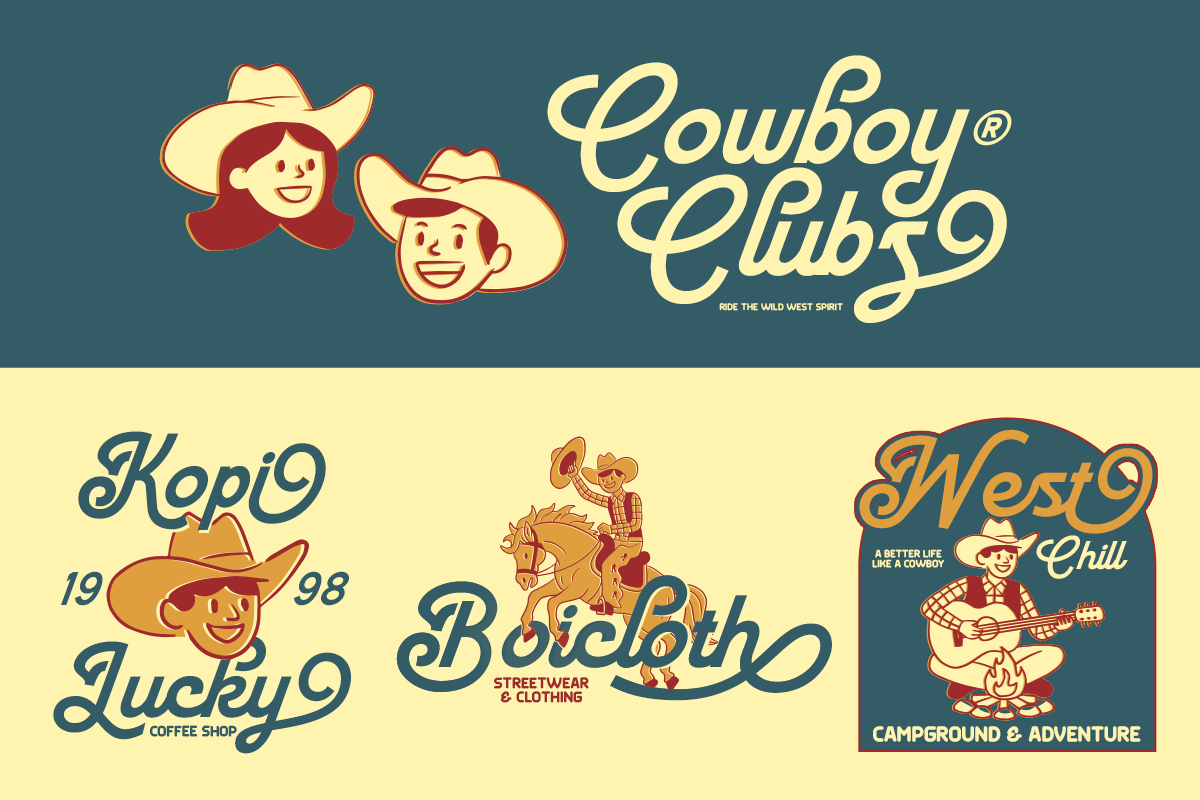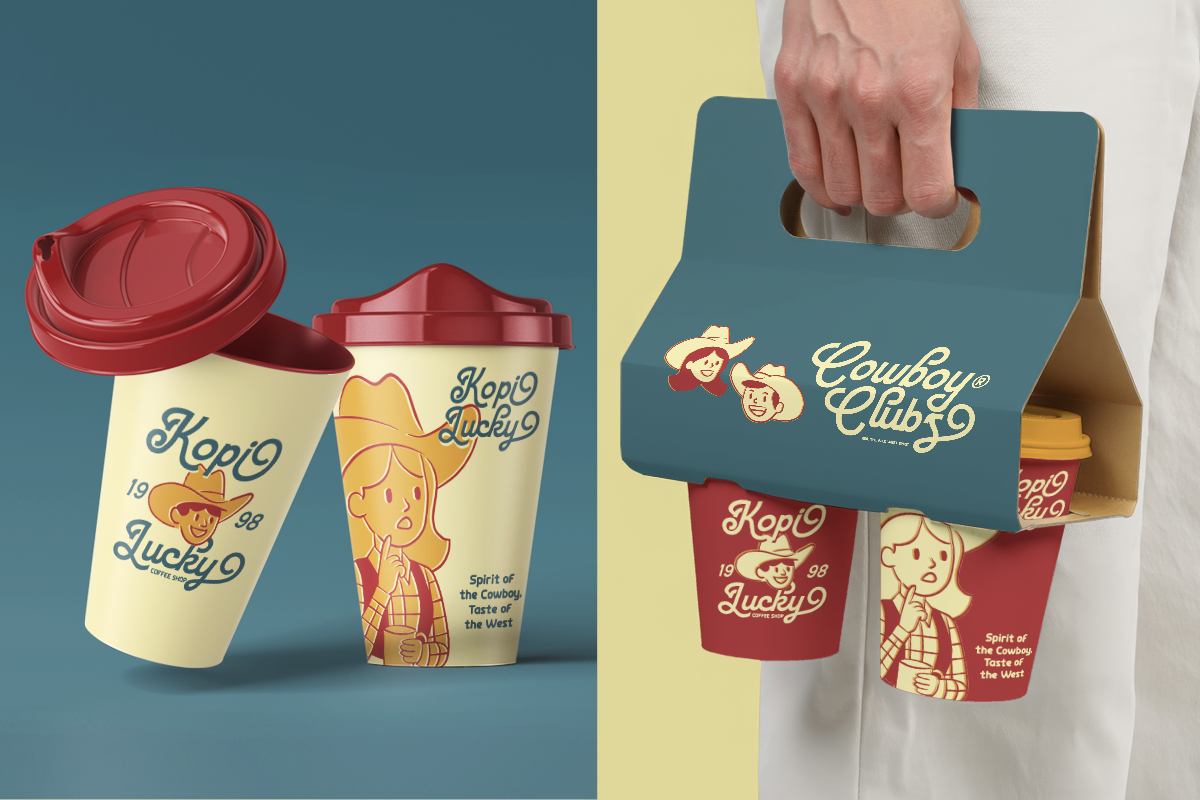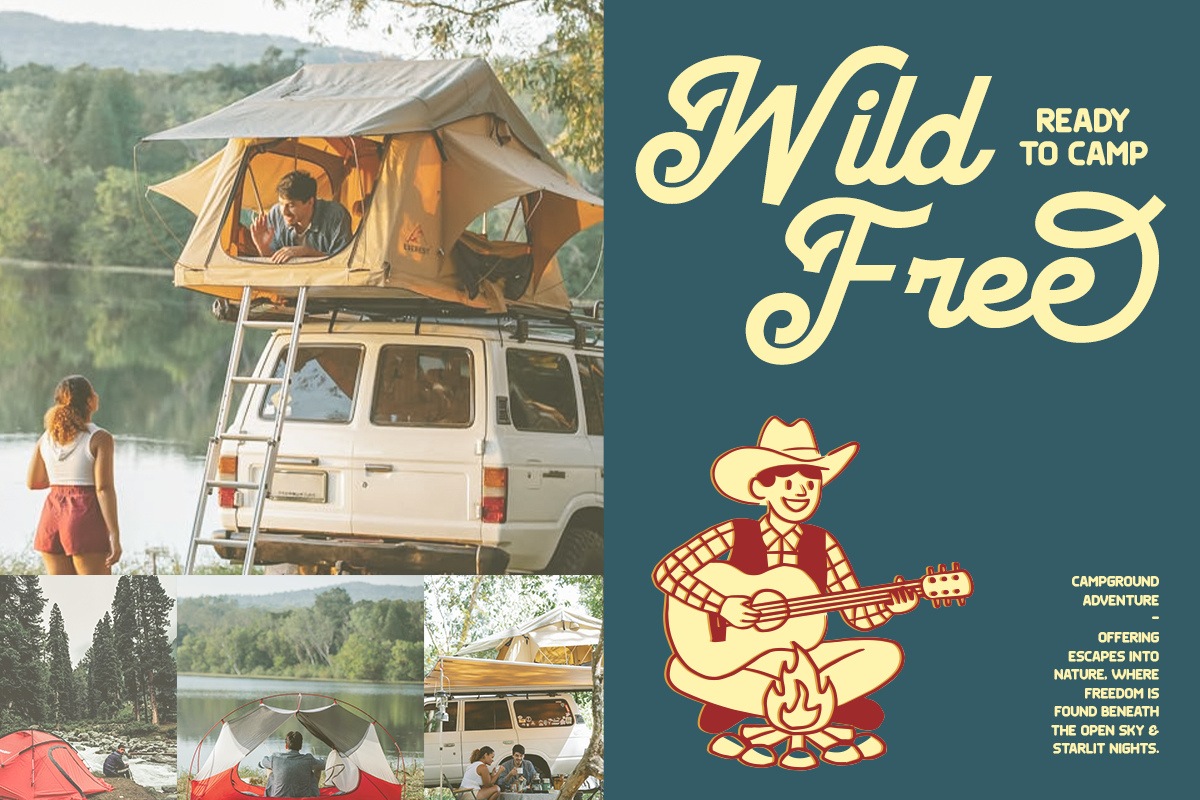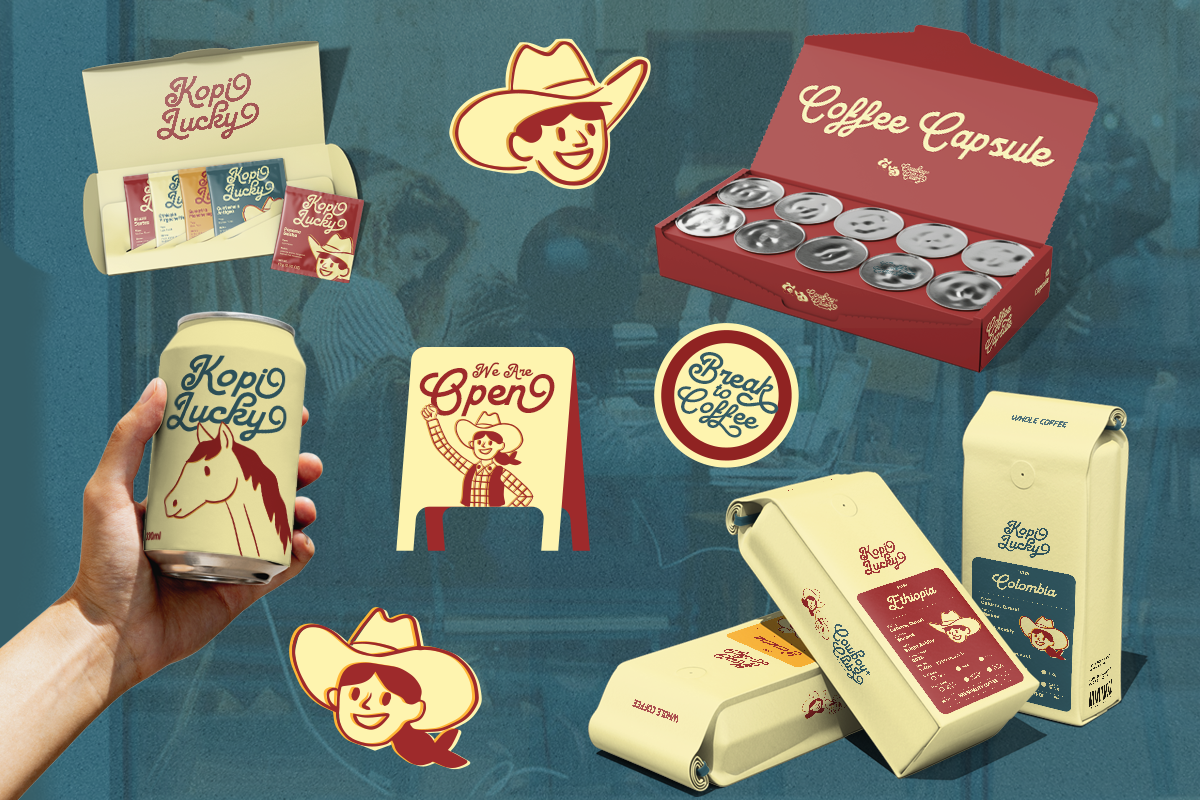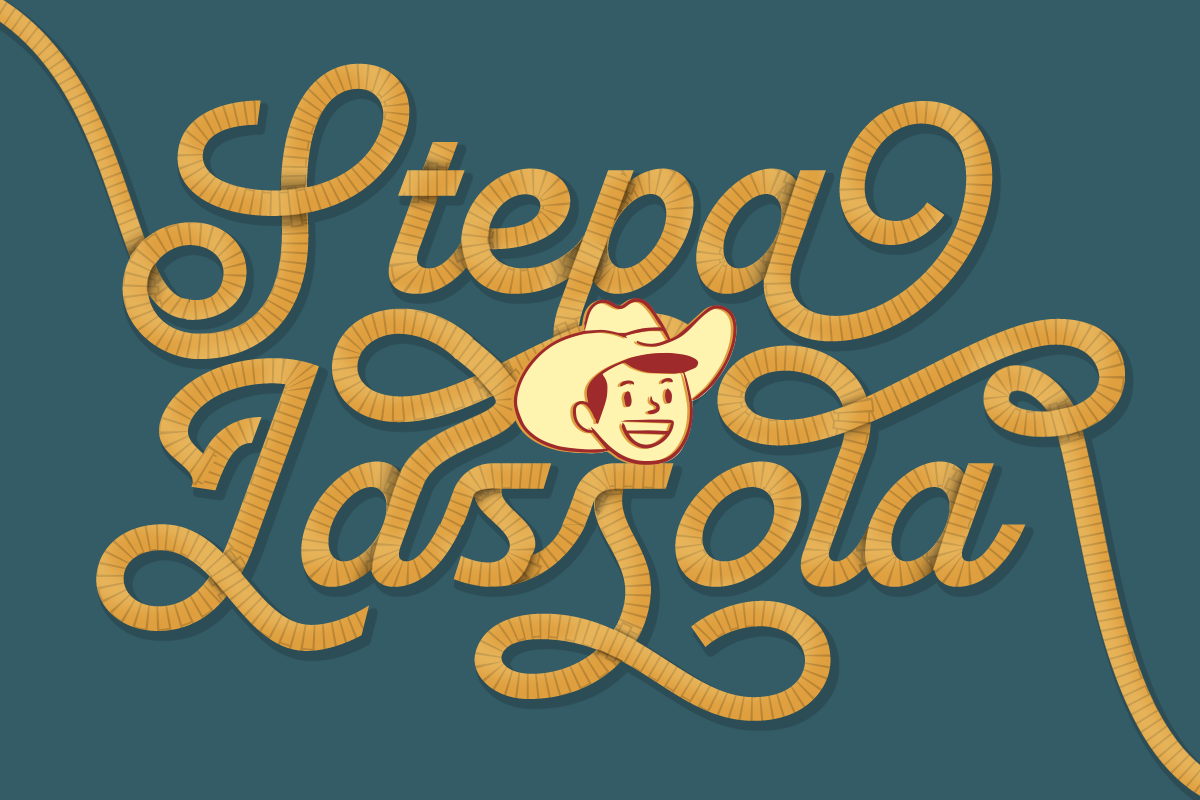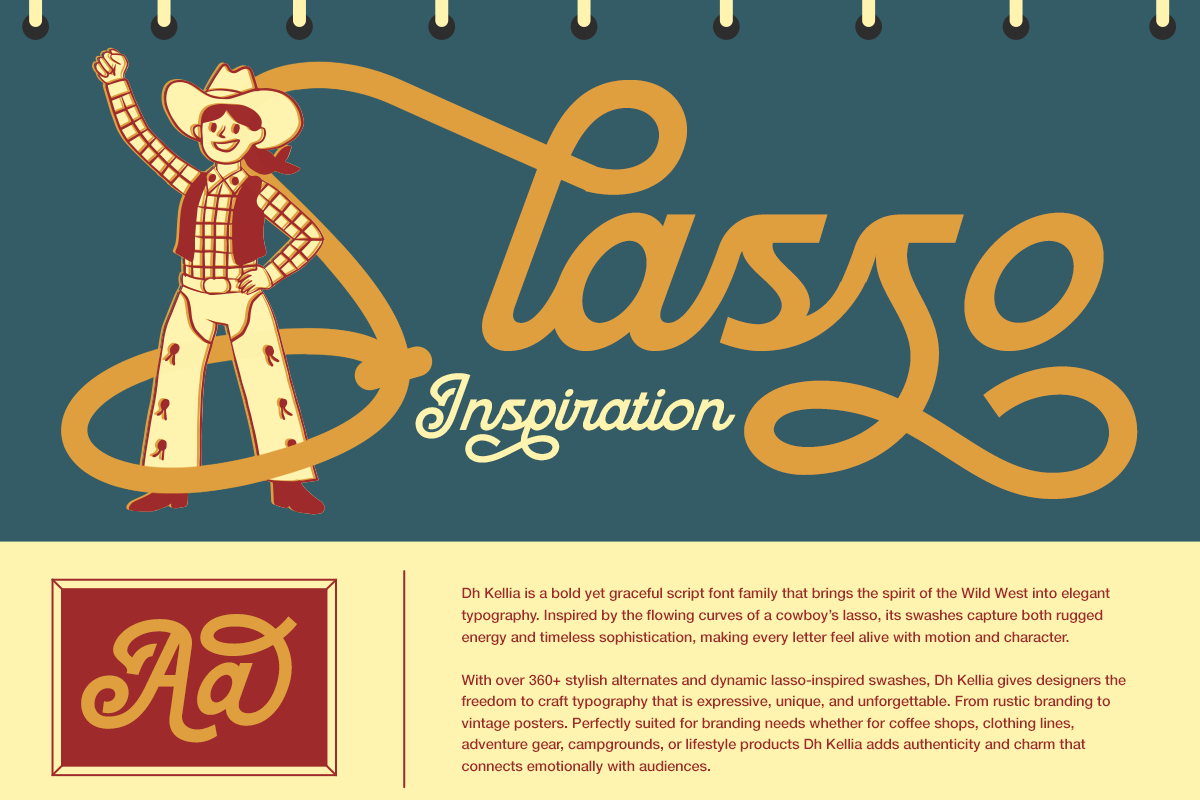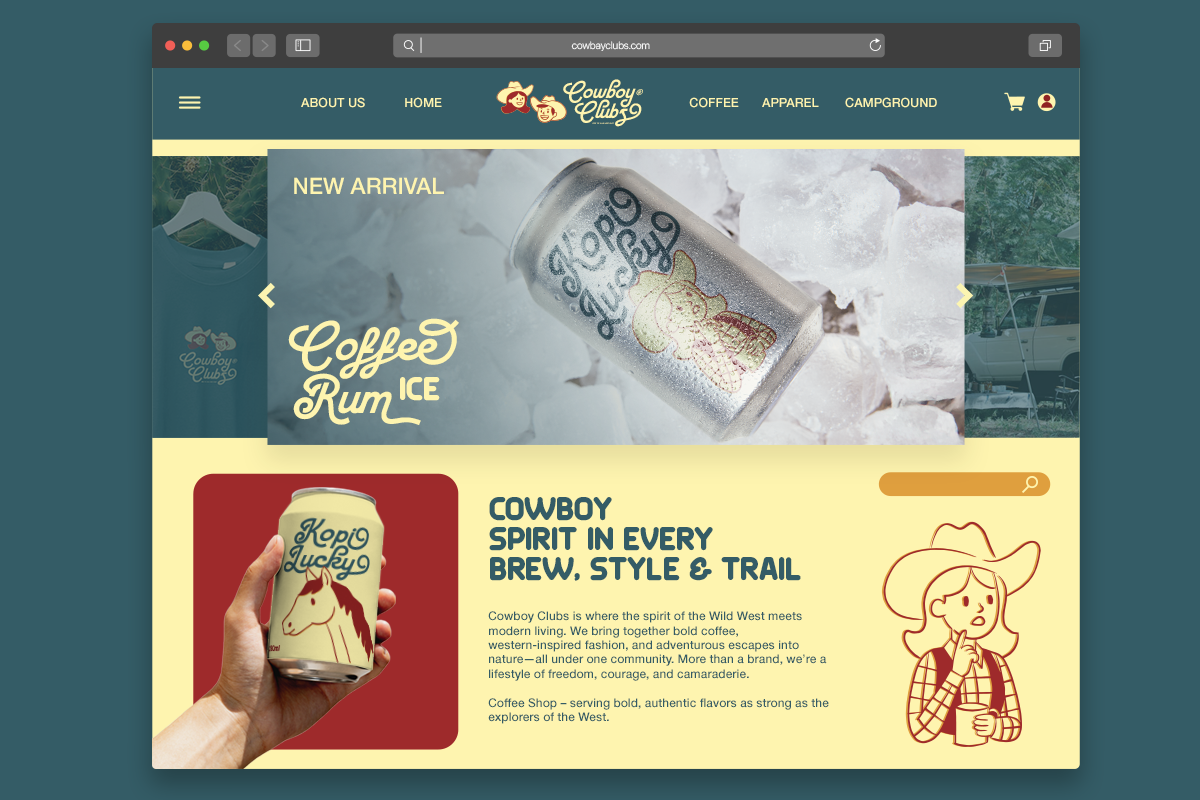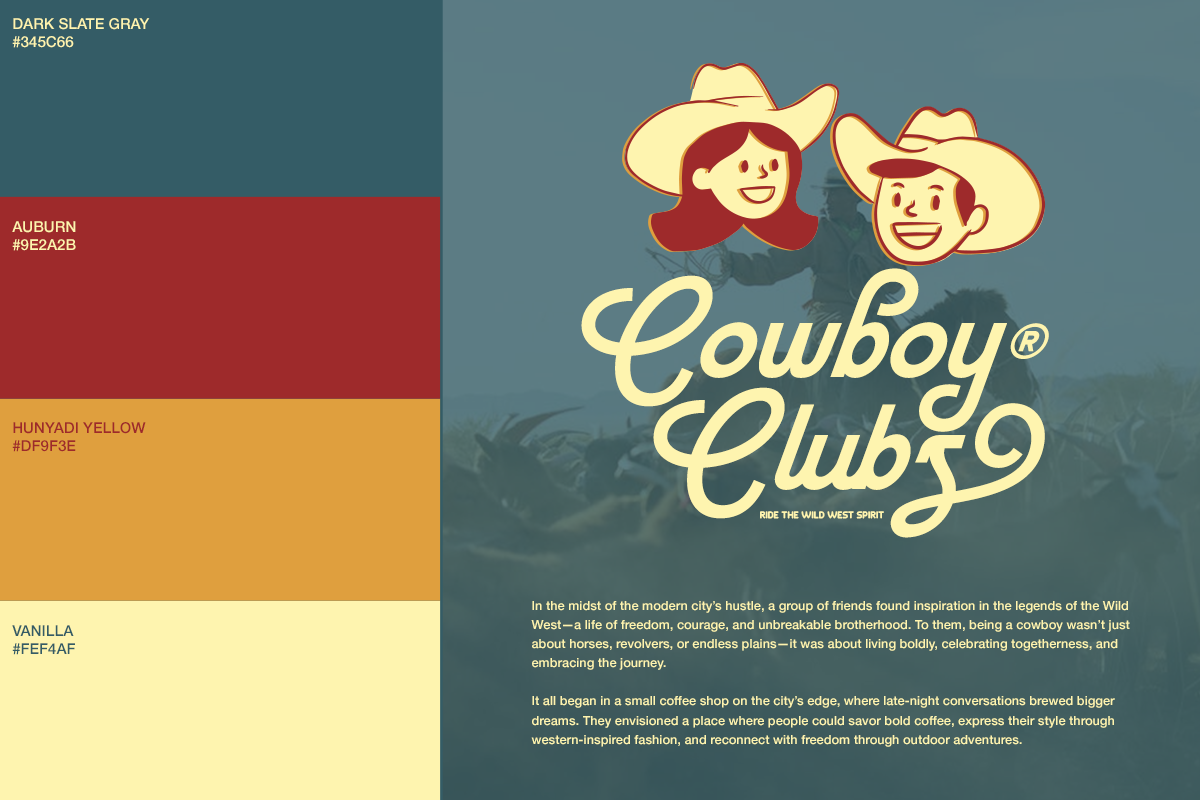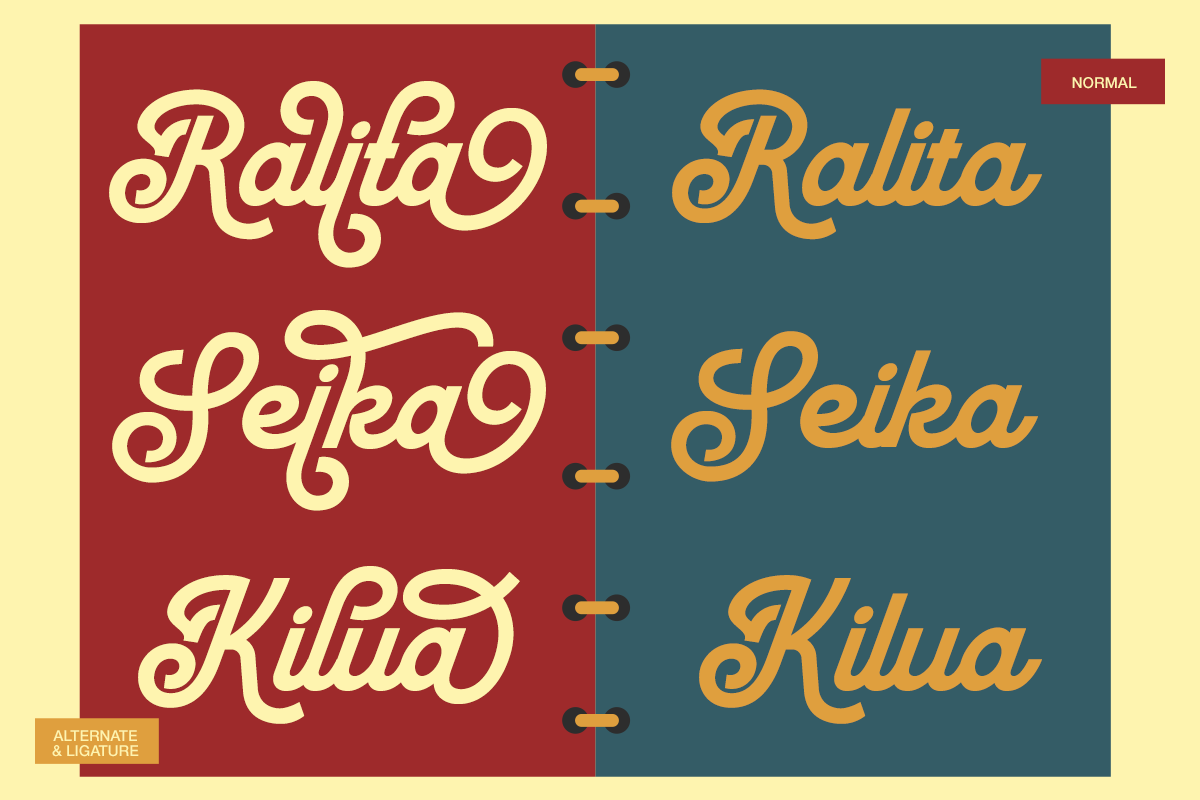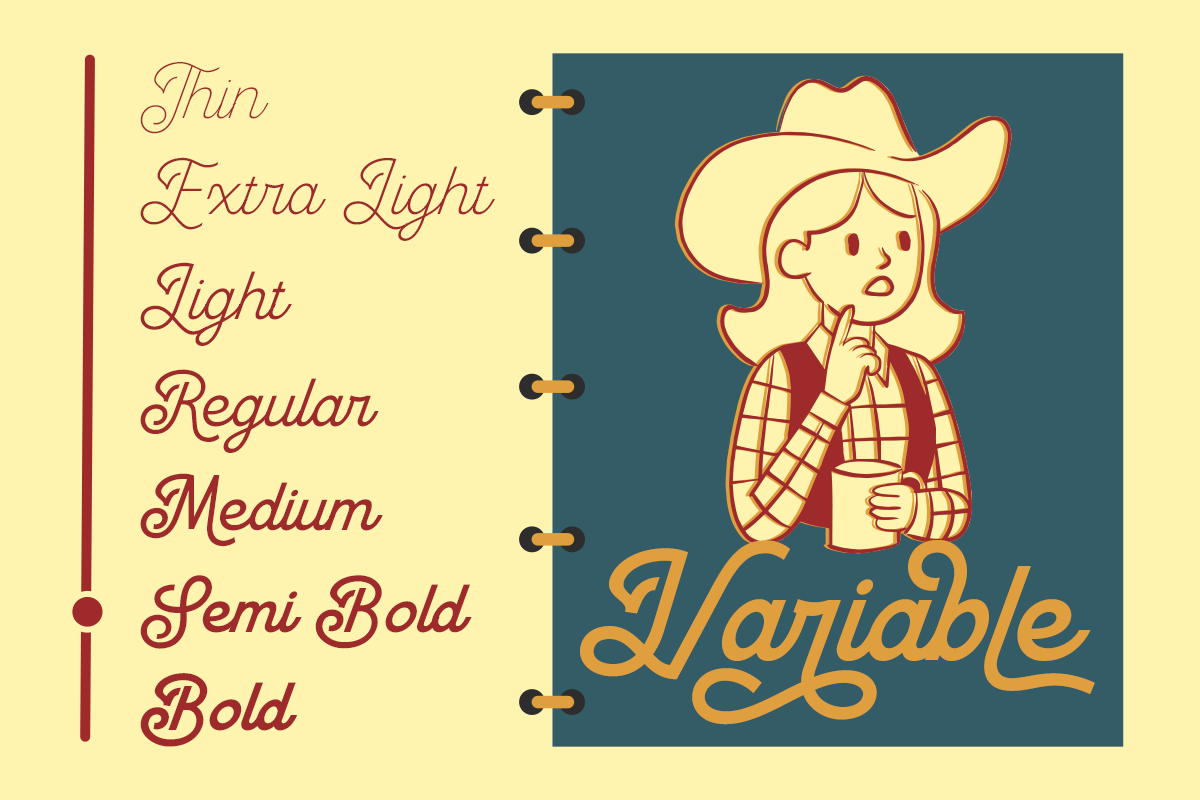
Dh Kellia - 7 Vintage Script Family
Dh Kellia is a charming vintage script font family inspired by the nostalgic spirit of the Wild West and retro hand-lettering styles. It blends playful curves with elegant strokes, creating a warm and friendly personality perfect for branding, packaging, apparel, café logos, retro posters, and creative social media designs.
This font family comes with 7 styles — Thin, Extra Light, Light, Regular, Medium, Semi Bold, and Bold — giving you the flexibility to match various visual tones and project needs. Equipped with 125+ alternates and ligatures, Dh Kellia allows endless creativity in lettering compositions, making every word look uniquely handcrafted and full of character.
Complete with uppercase, lowercase, numerals, punctuation, and multilingual support, Dh Kellia is your go-to font family for vintage-inspired designs with a touch of modern elegance.
Dh Kellia Font Features:
7 Weights: Thin, Extra Light, Light, Regular, Medium, Semi Bold, Bold
125+ Alternates and Ligatures
Letters, numbers, symbols, punctuation, special alternates